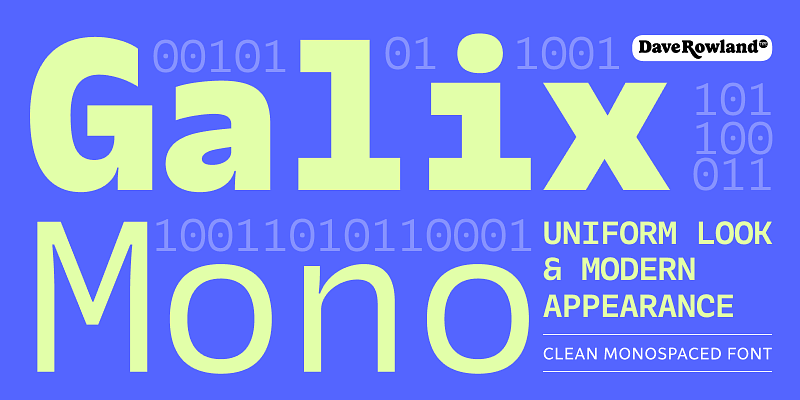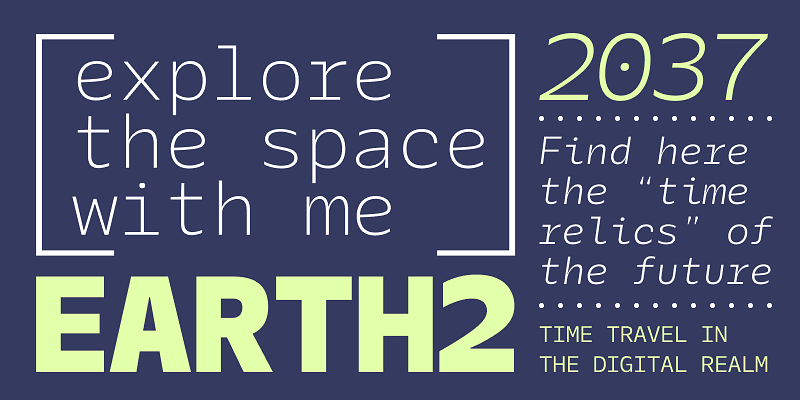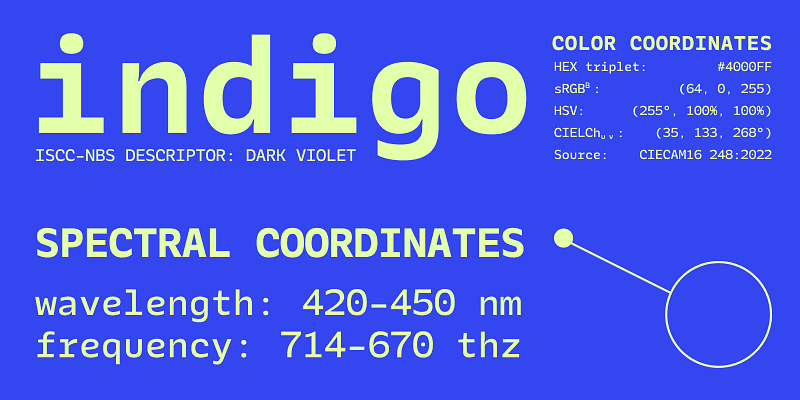
Galix Mono is a monospace font patterned after Galix, a technical sans designed to look futuristic without any of the retro appearance. It has a squarish, slightly condensed anatomy characterized by thin joints and deep ink traps that add a sparkle to the otherwise monoline typeface. In the italics, these cuts are accentuated even more, which creates a sense of speed in the letterforms. Galix Mono is perfect for coding, apps, infographics, and other design situations that require structure.